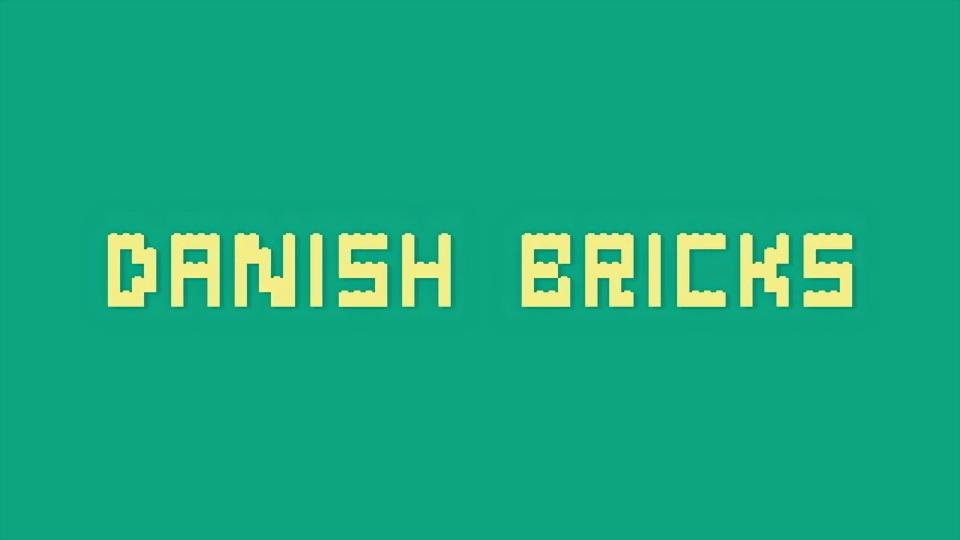
Download Danish Bricks font, a decorative typeface inspired by the famous “Danish bricks to assemble”. All characters are inspired in ways that really can be assembled with bricks and stay mounted without assistance.
Designer: Rafael Hoffmann